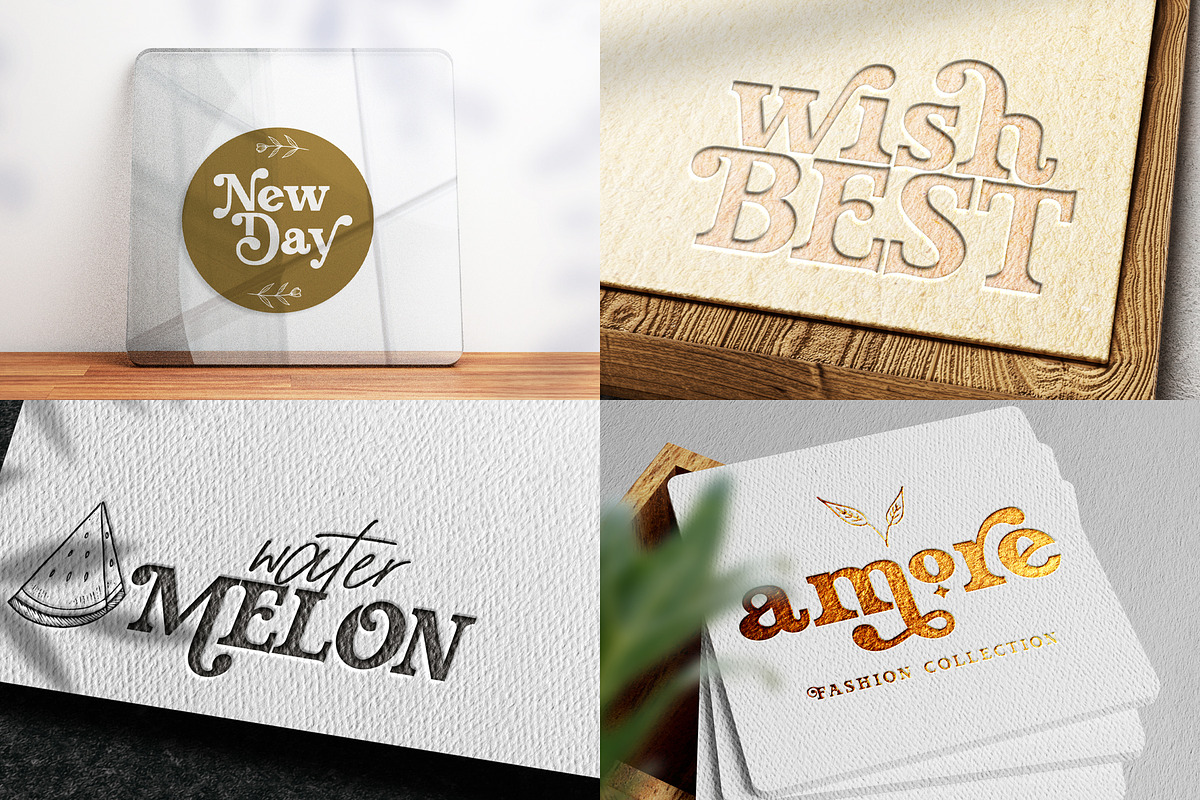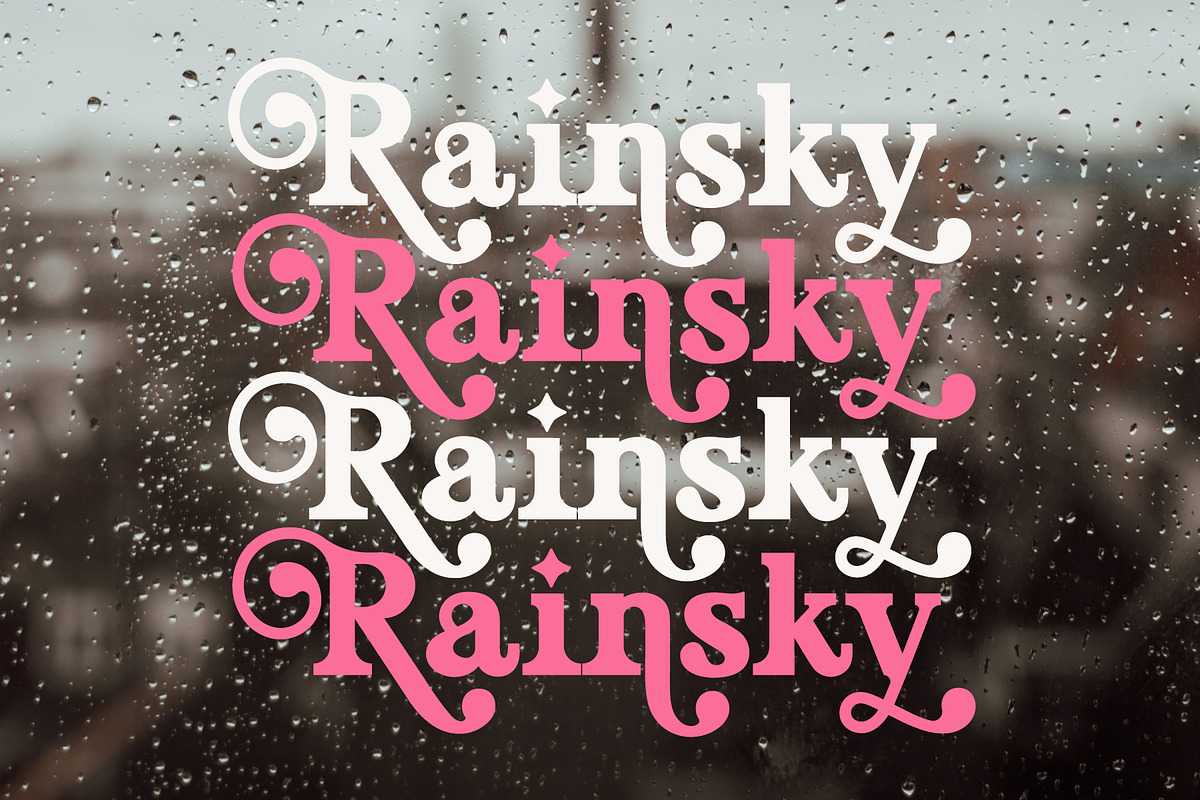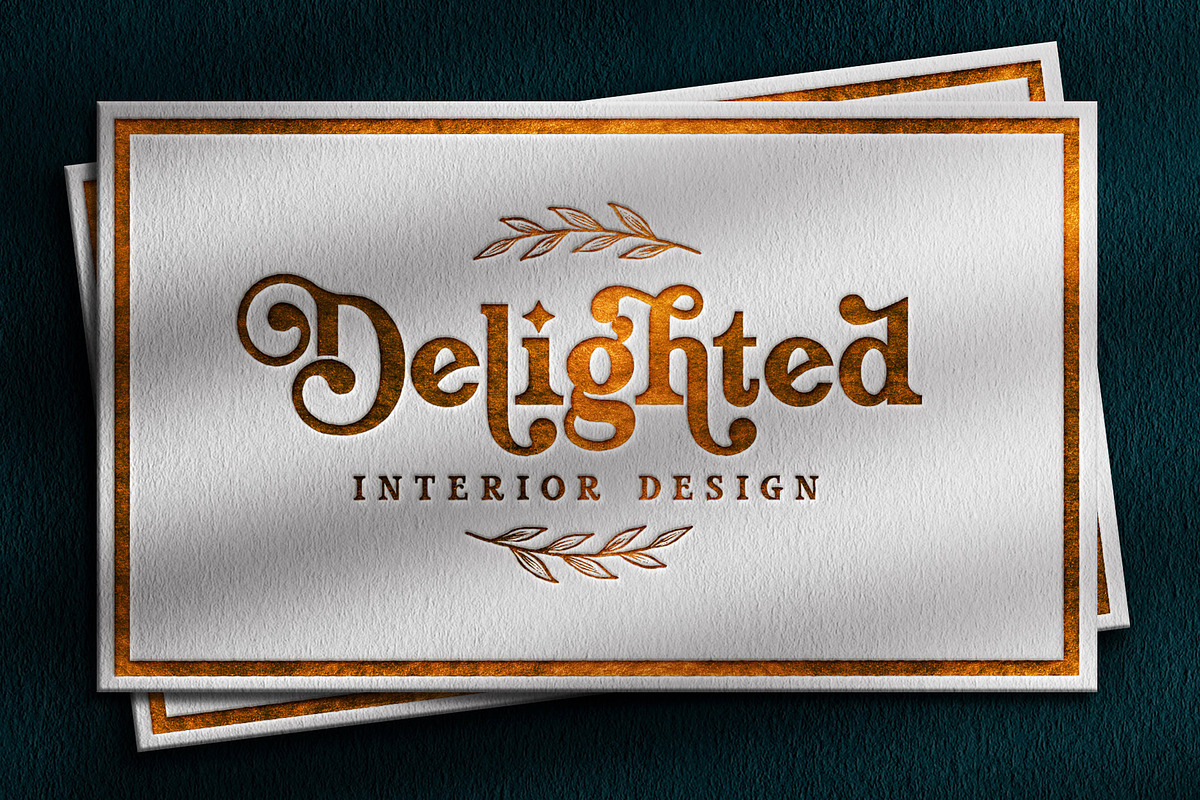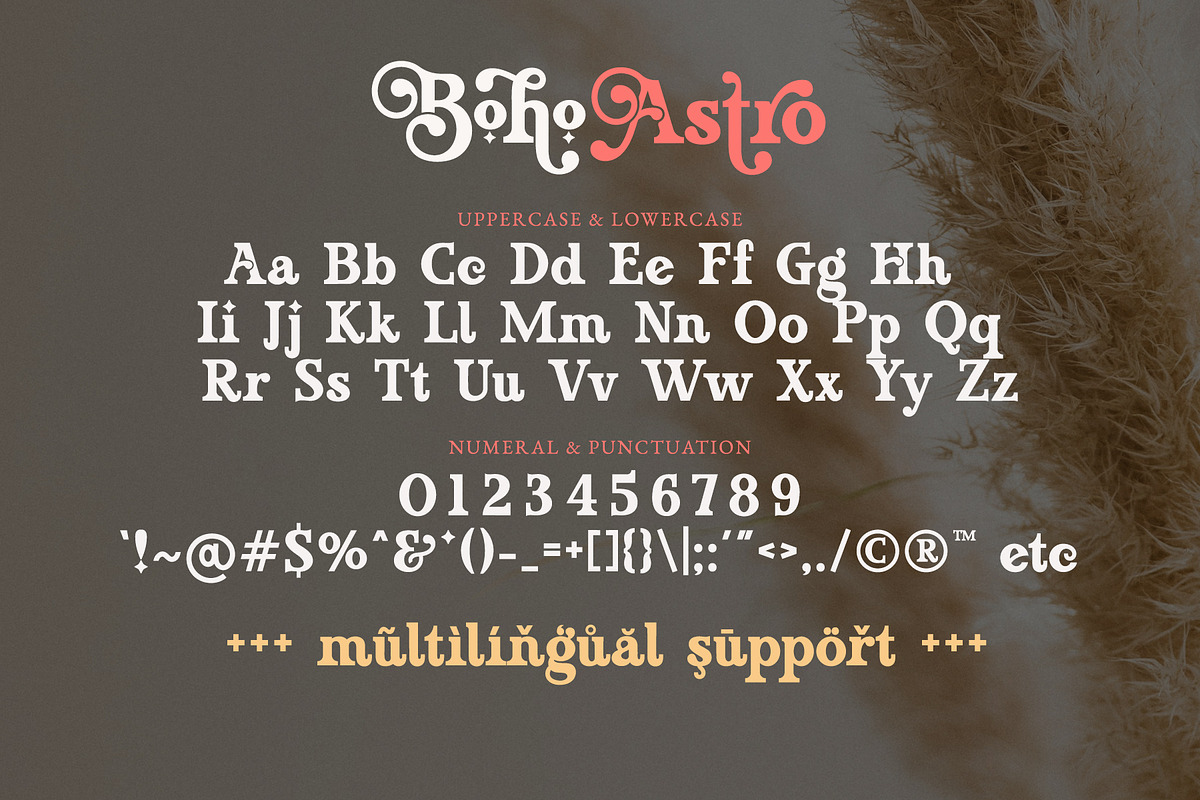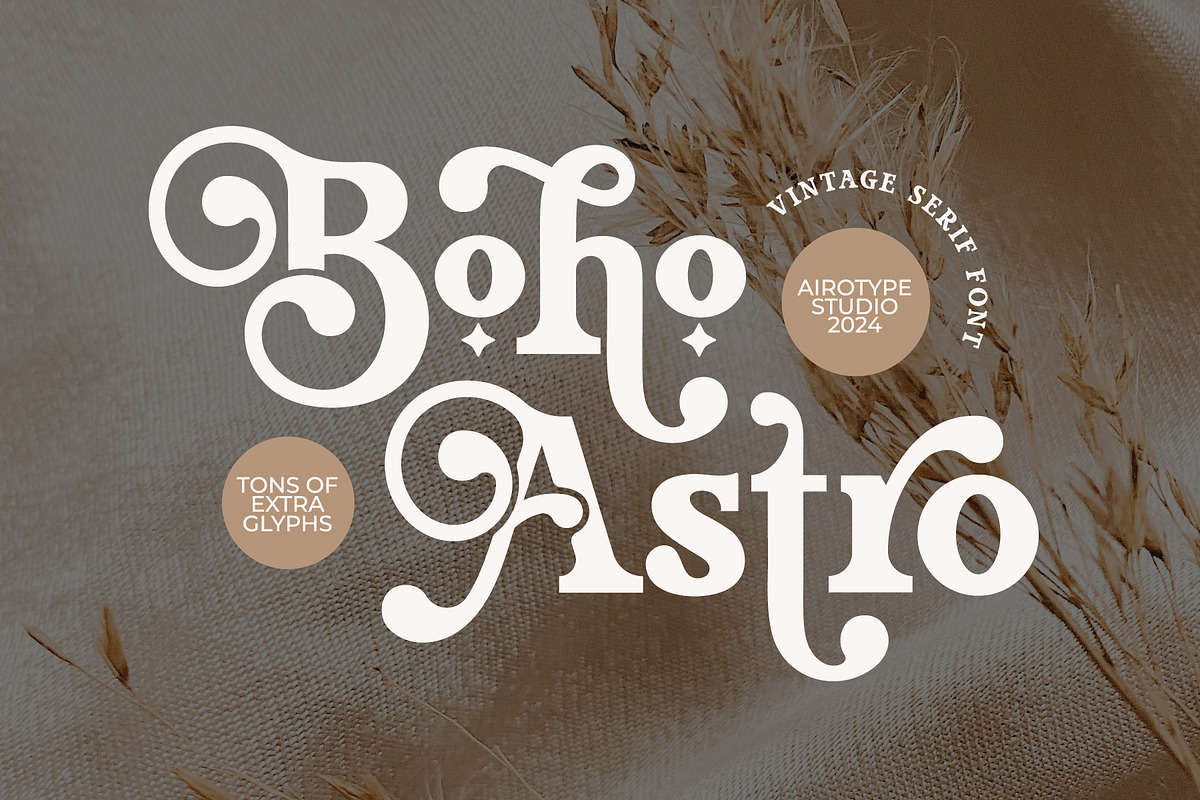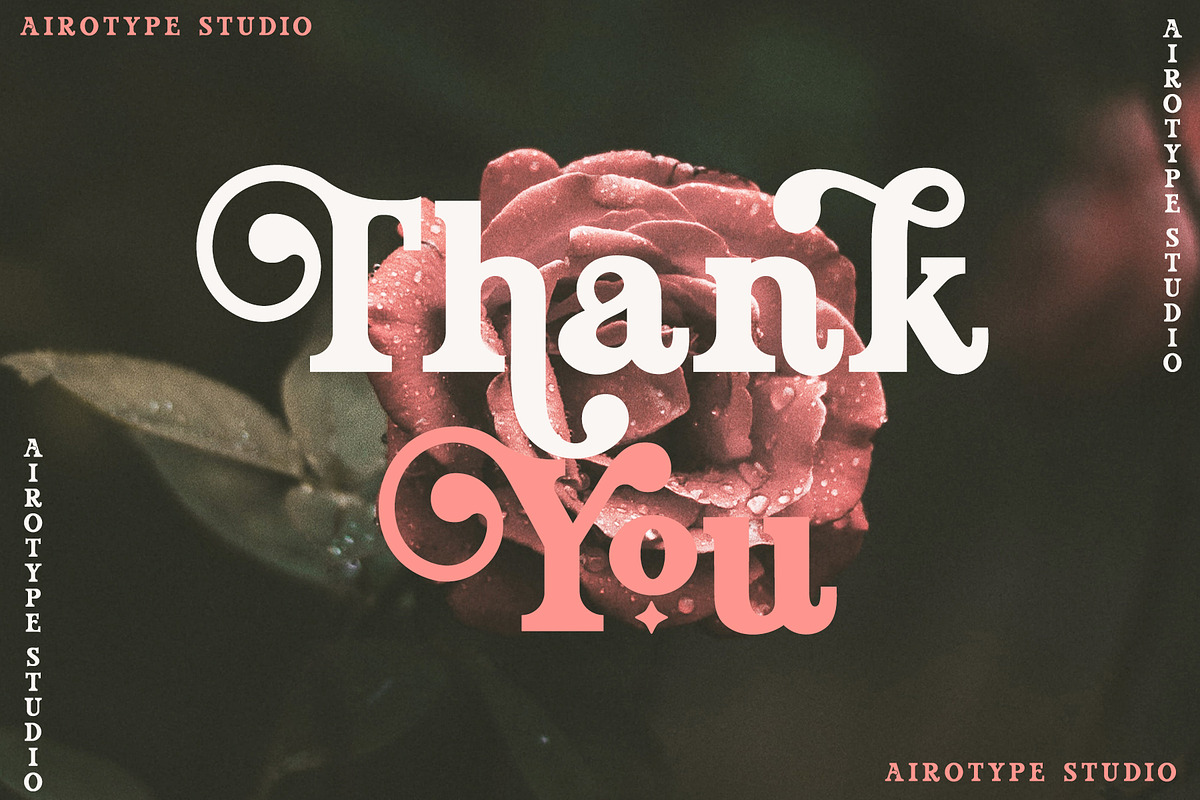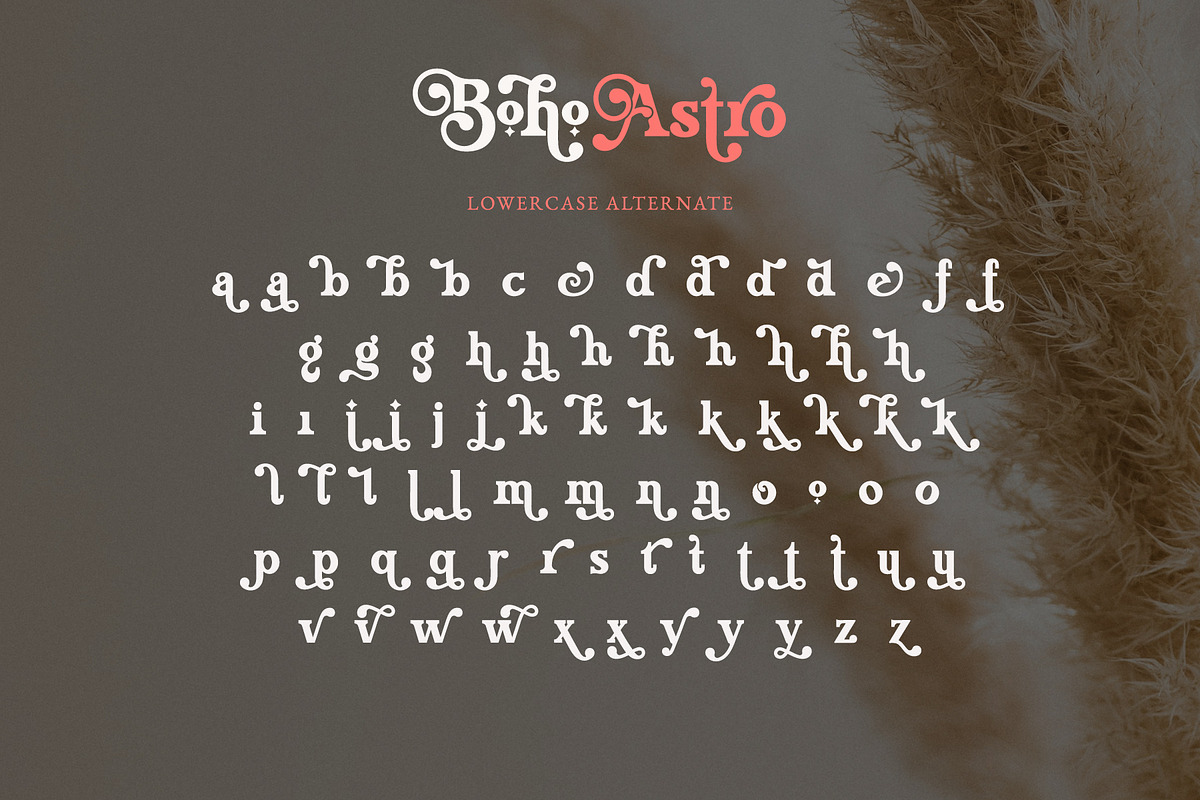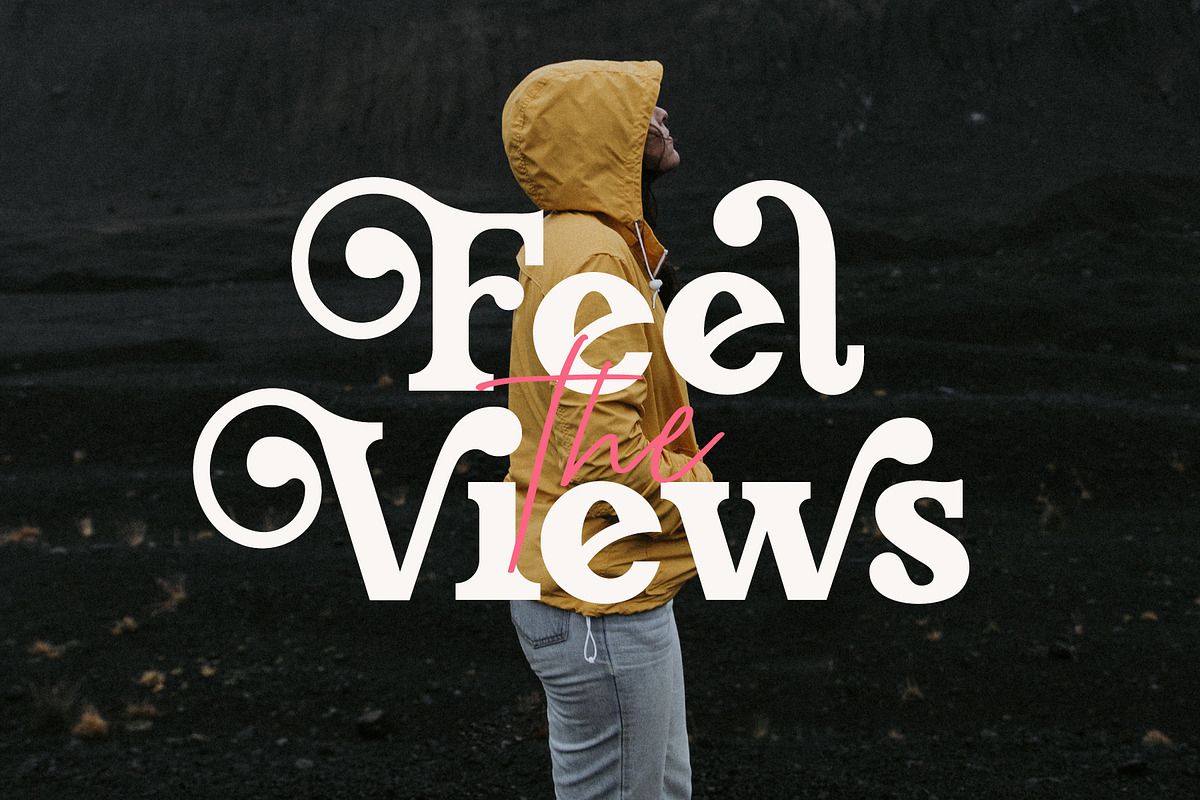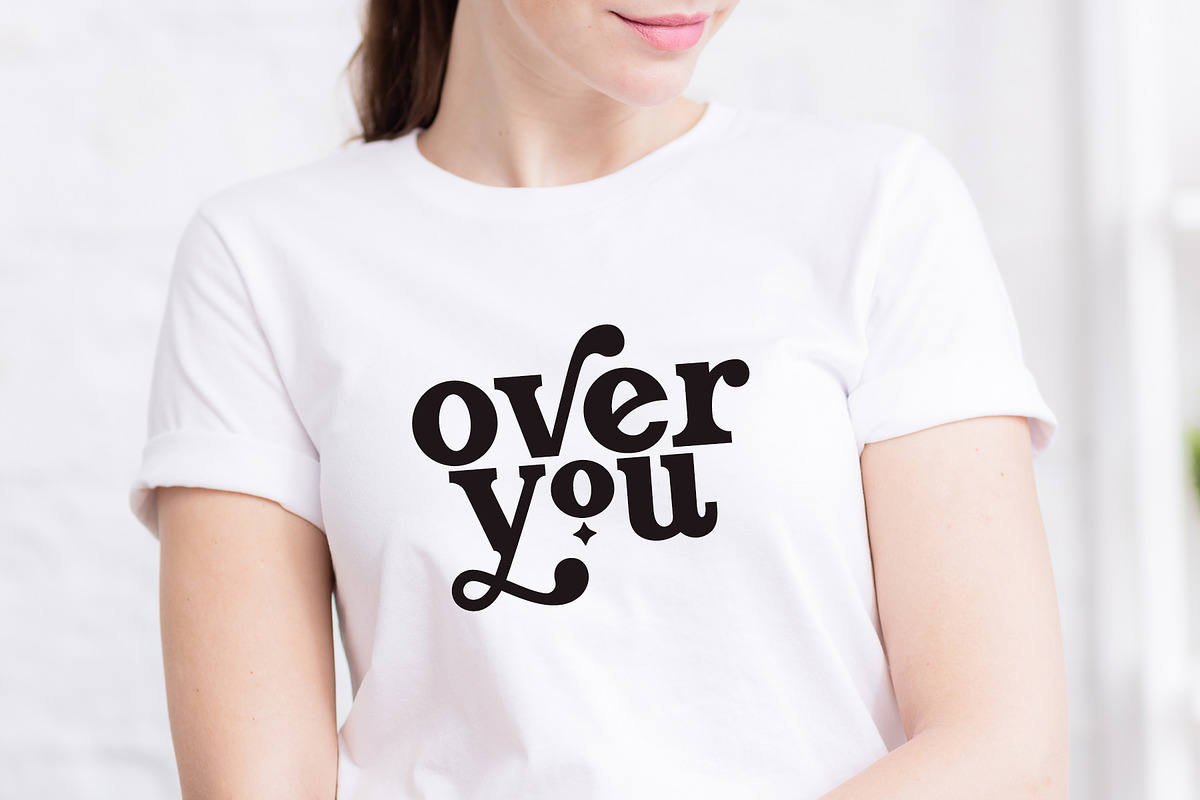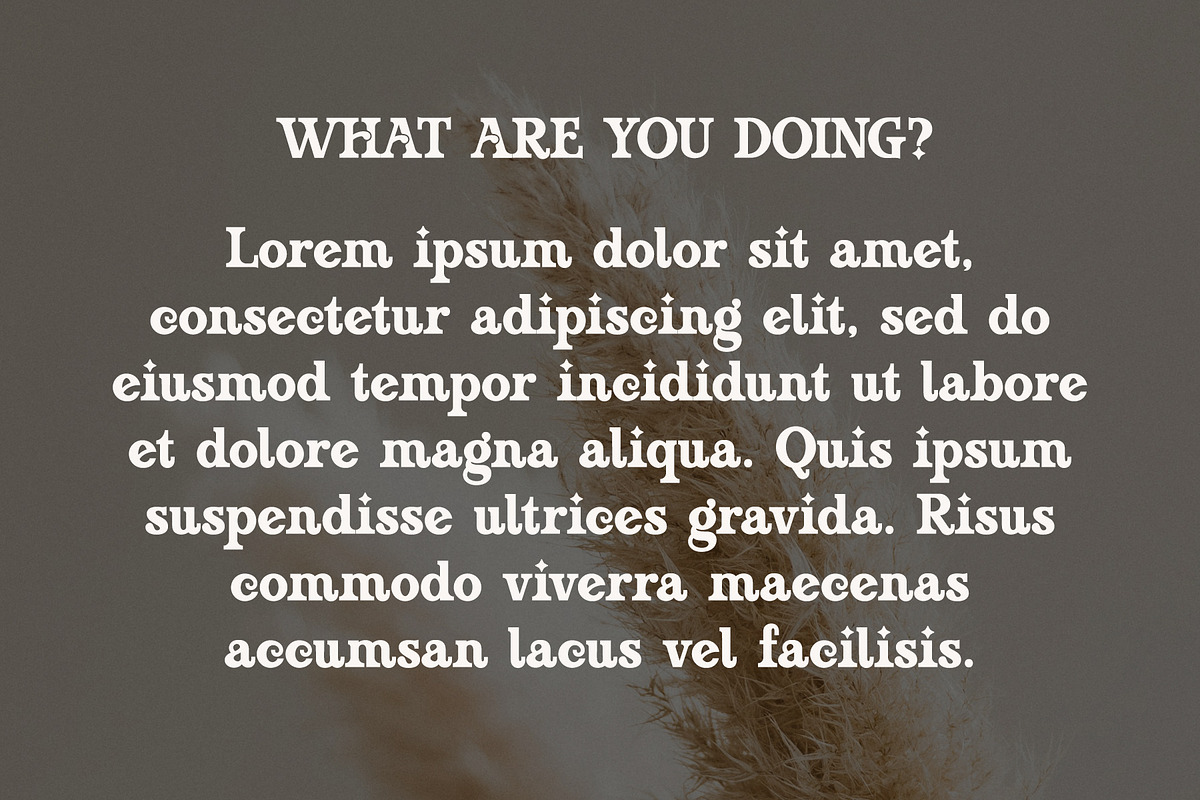
Boho Astro - Vintage Slab Serif
Boho Astro is bold modern serif font. It is cool, elegant, and having vintage vibes.
This font is perfect font for any projects with modern vintage touch, such as logo, crafting, wedding invitation, branding, photography, sticker, sublimation, quotes, and many others.
- Uppercase and Lowercase (include PUA-Encoded extra glyphs)
- Most Multilingual Accent